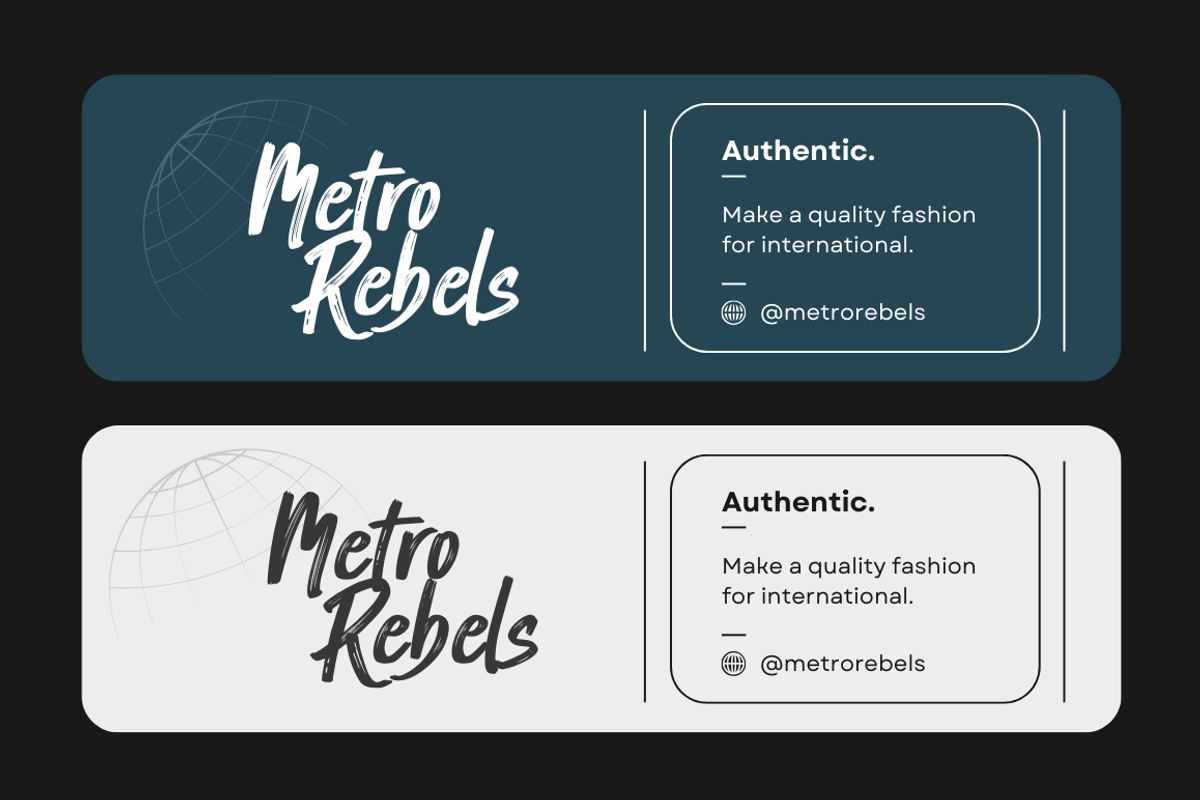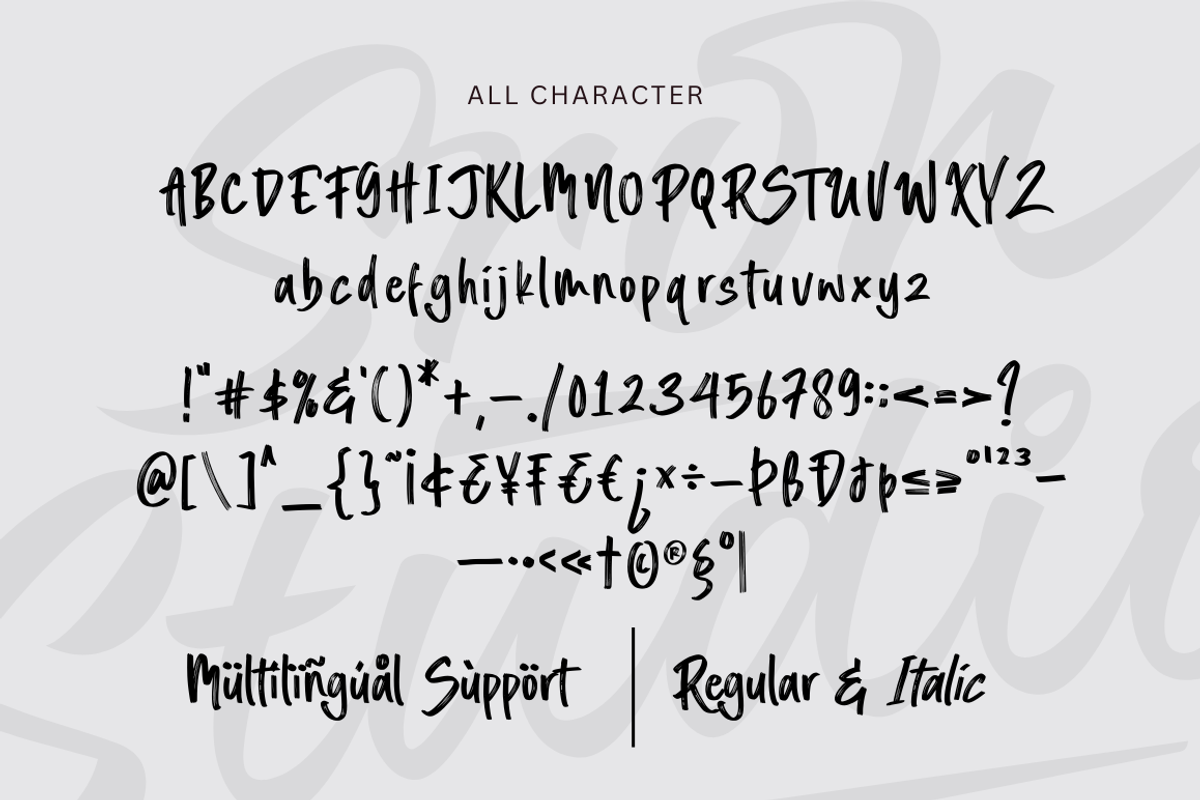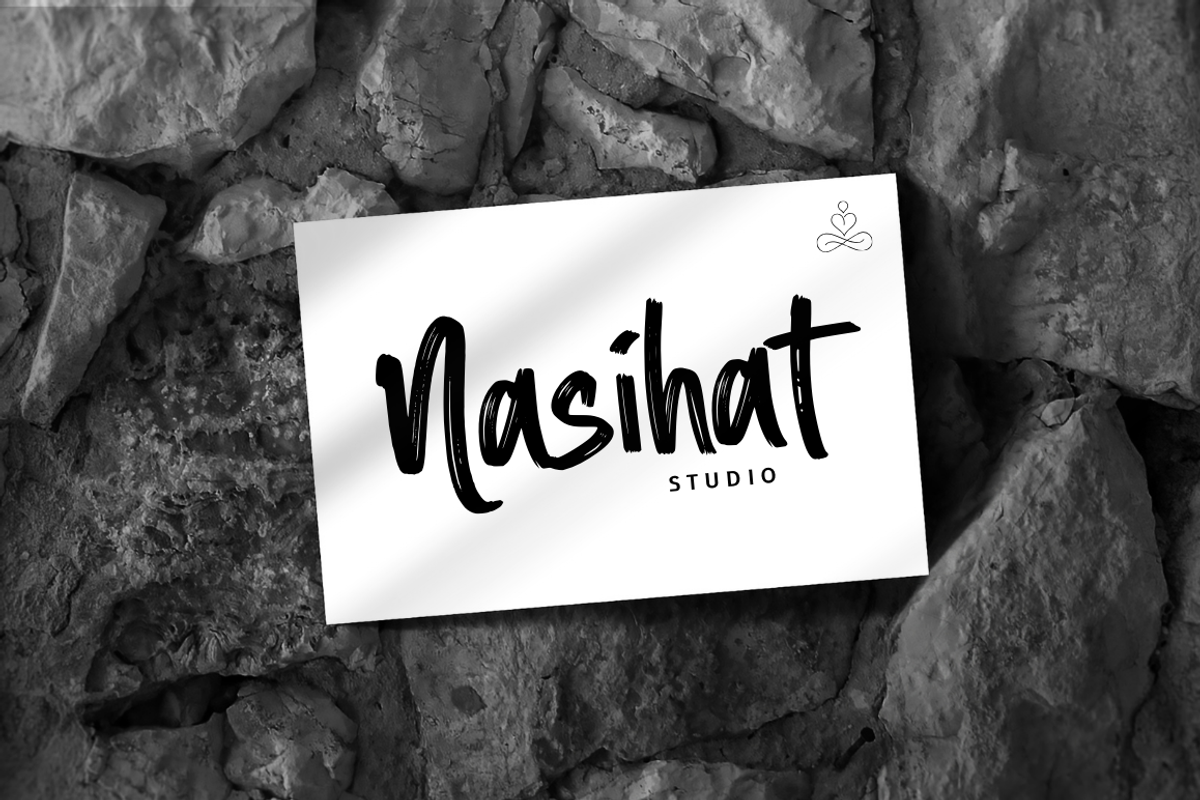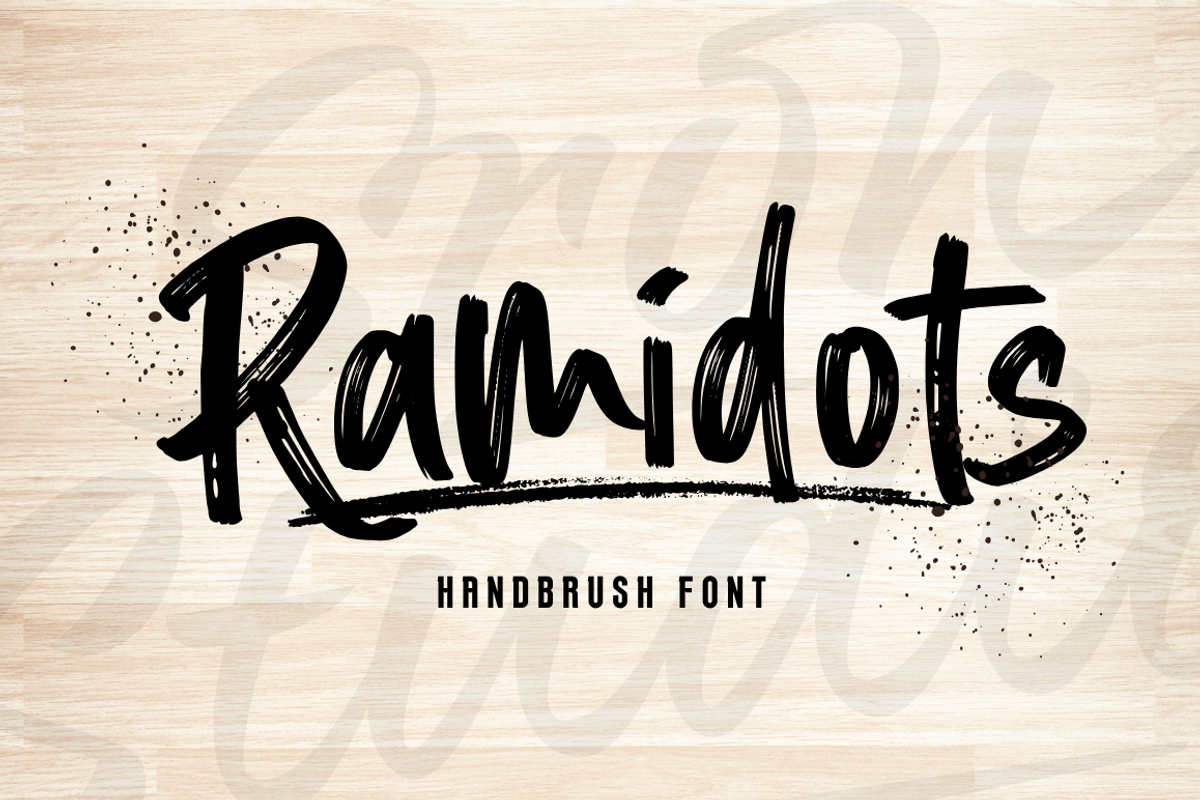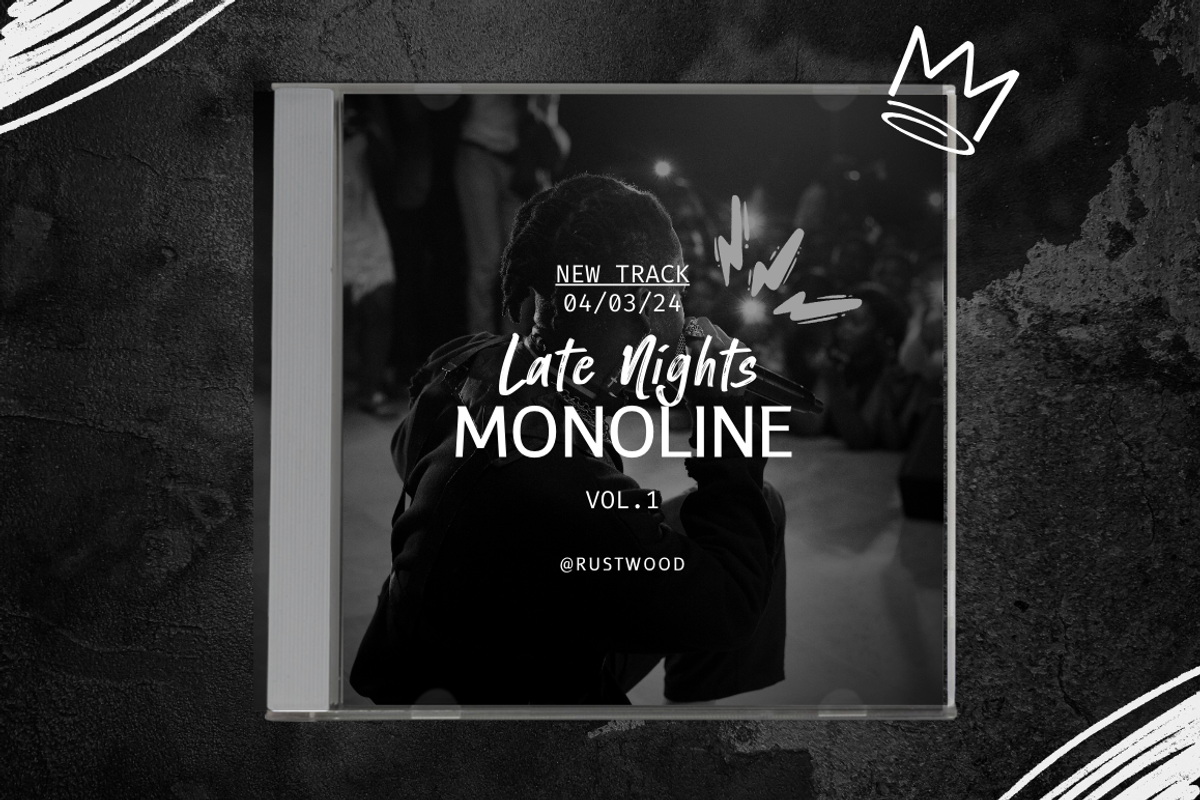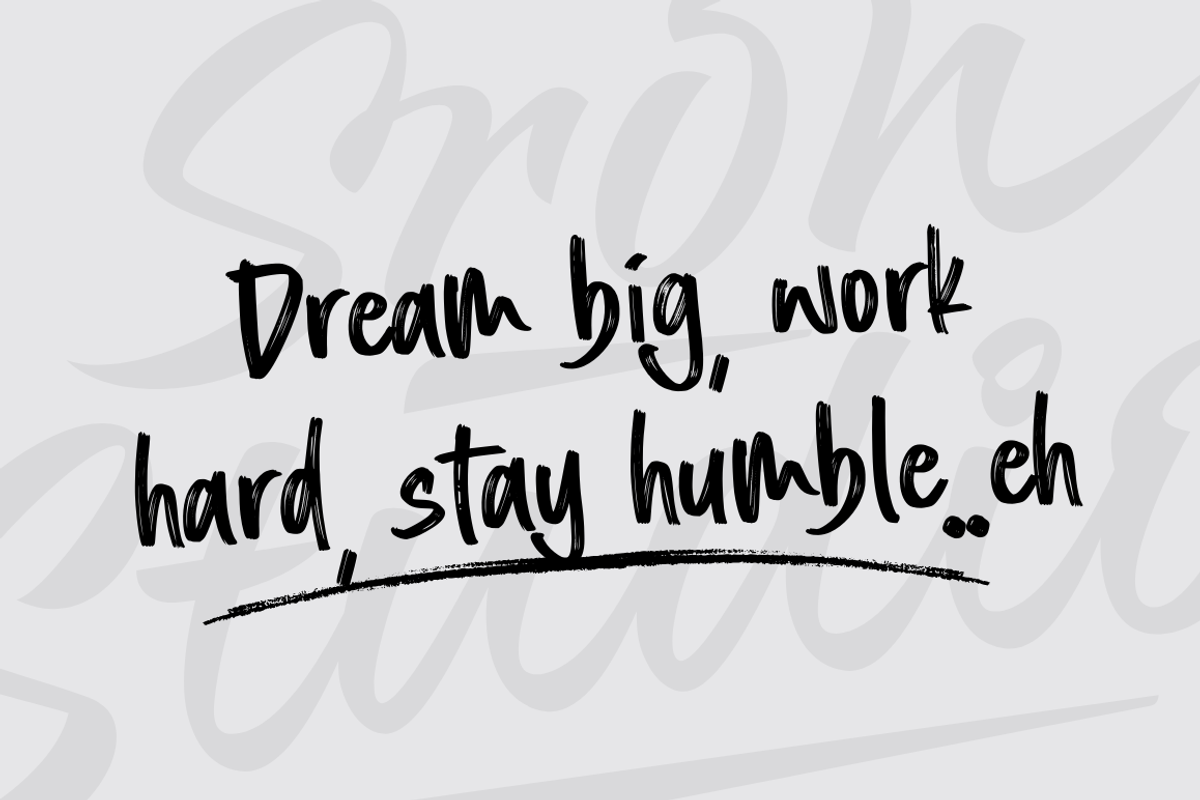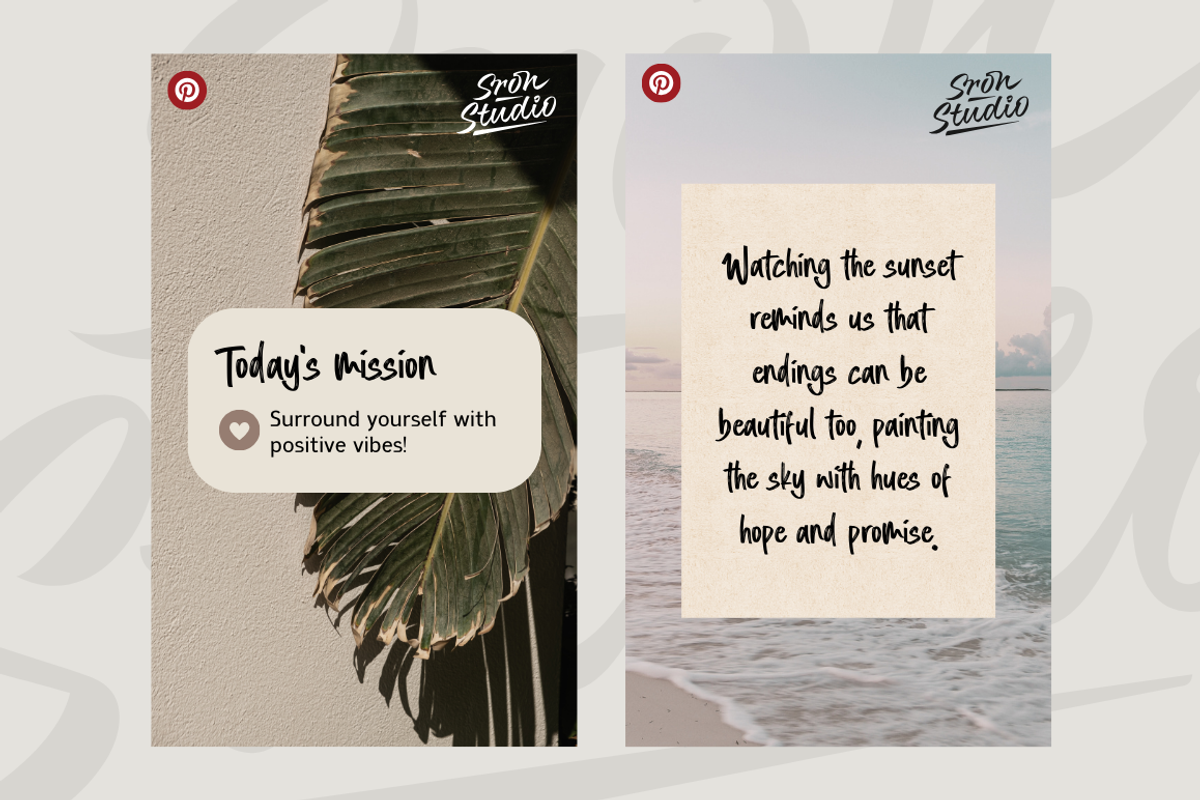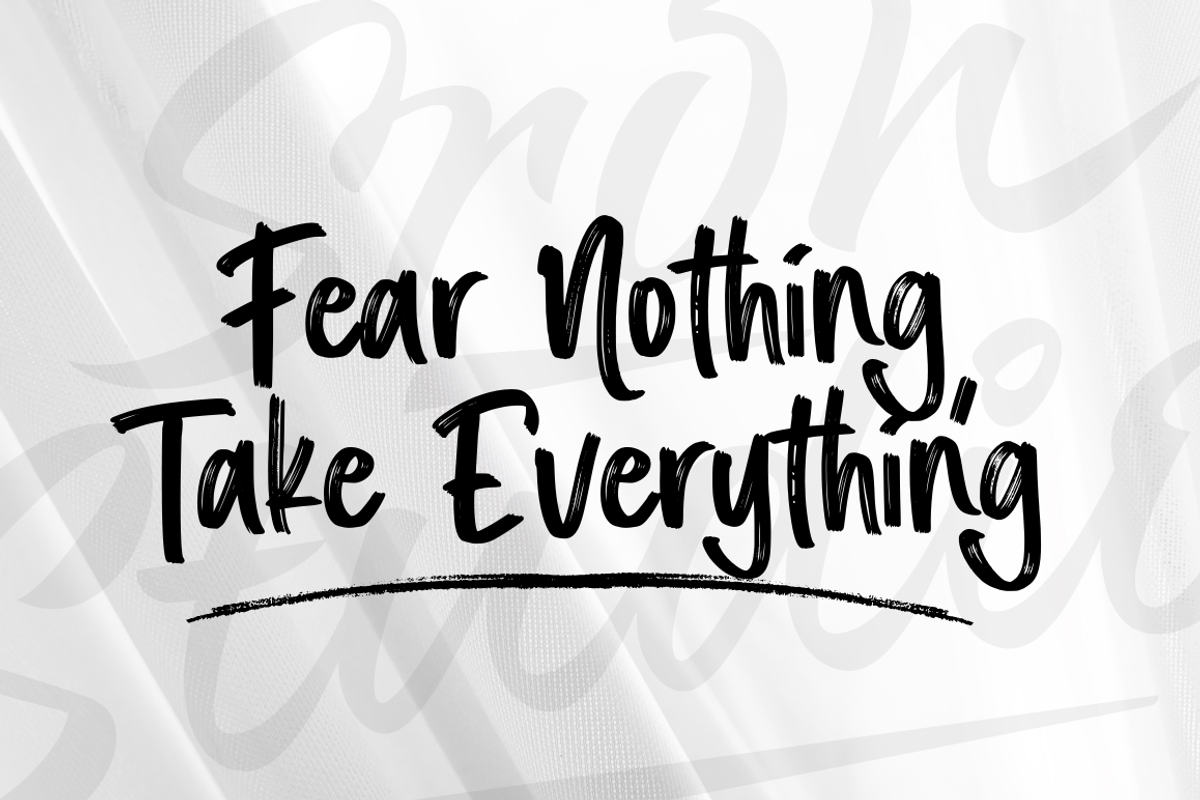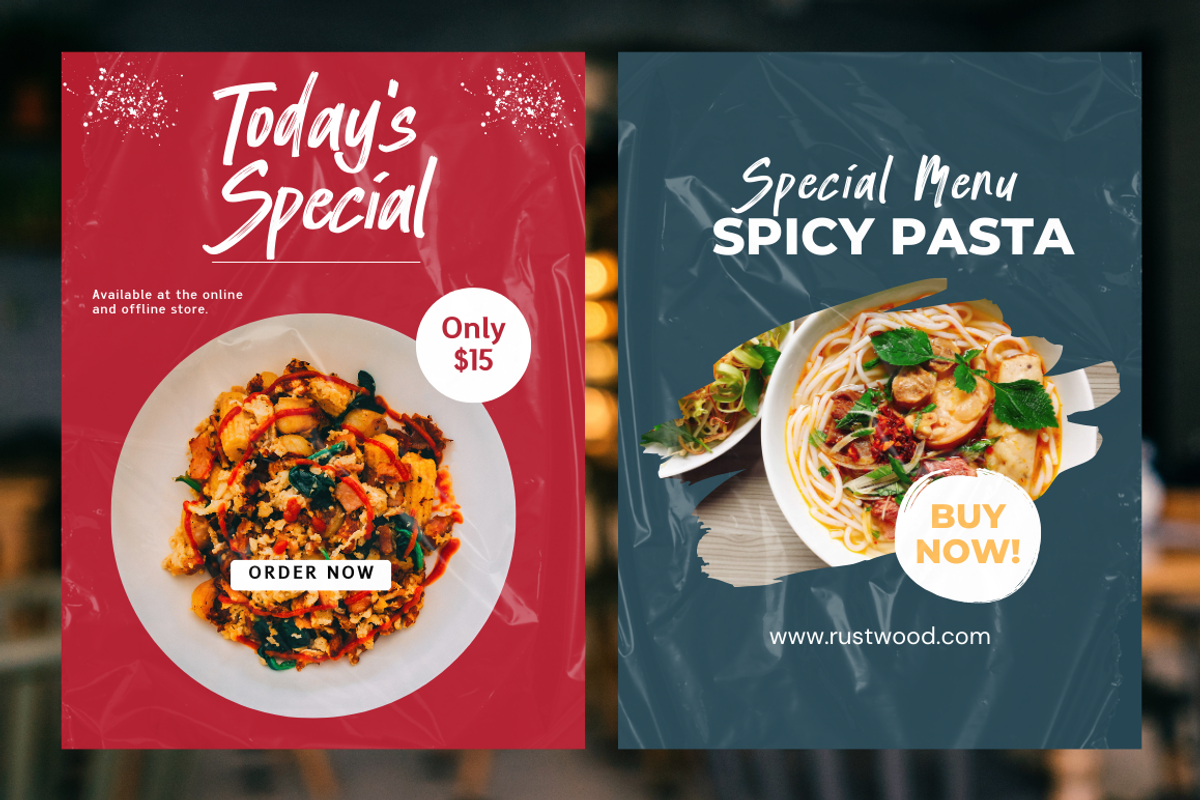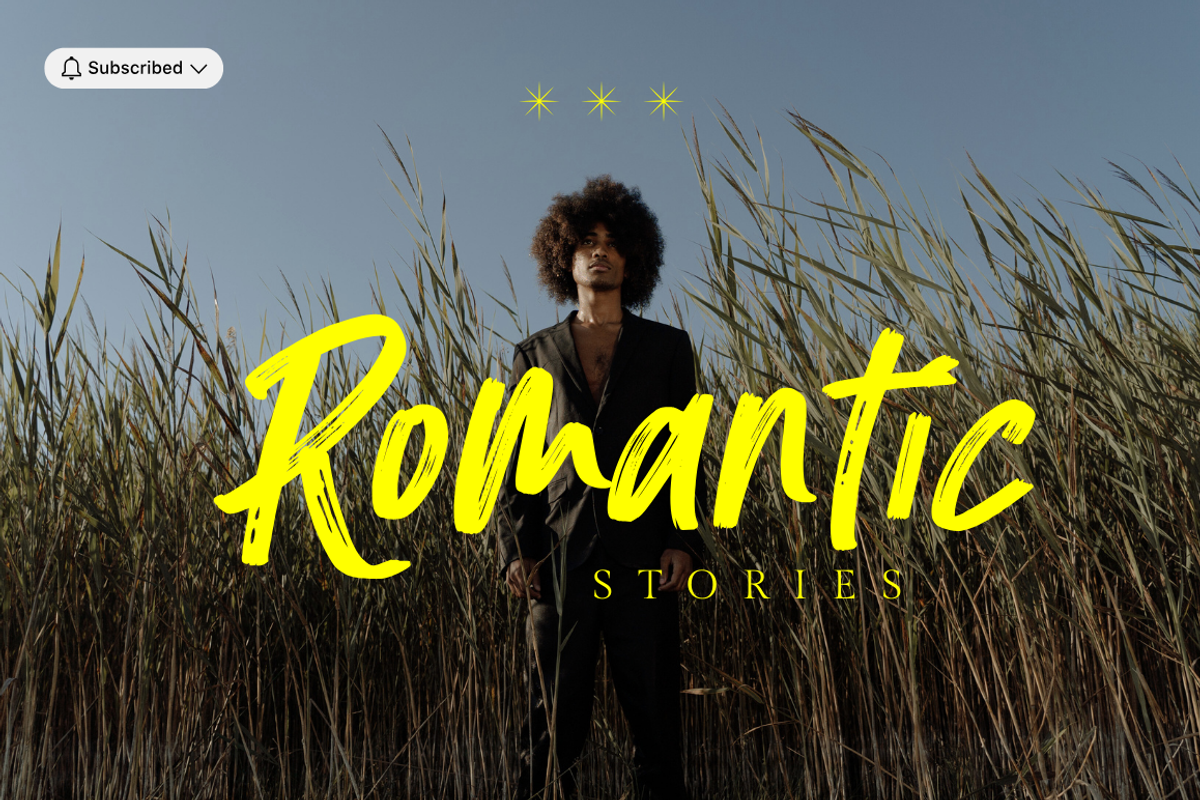
Ramidots - Handbrush Font
Ramidots is a bold and expressive brush font that captures the raw energy of hand-painted strokes. With its rugged texture and dynamic letterforms, this font is perfect for branding, posters, apparel, packaging, and any project that needs a touch of authenticity and creativity. Ramidots brings a handcrafted feel, making your designs stand out with personality and style.
- Regular & Italic Style
- Numerals & punctuation